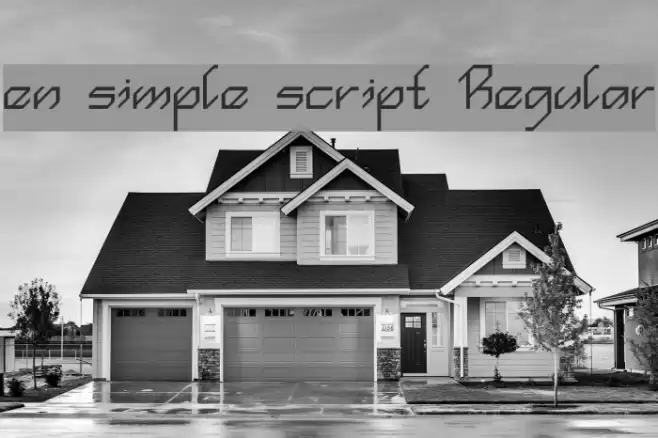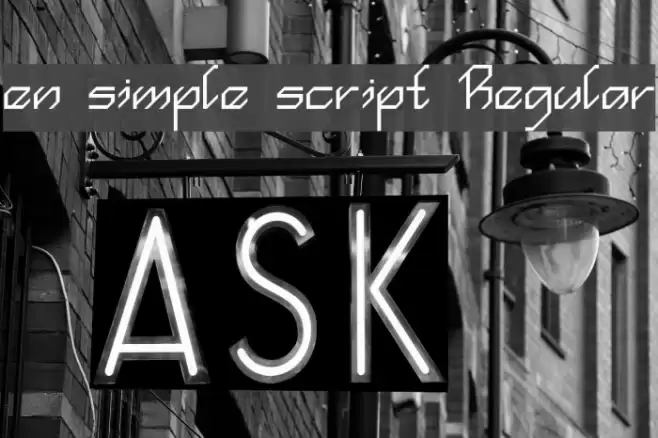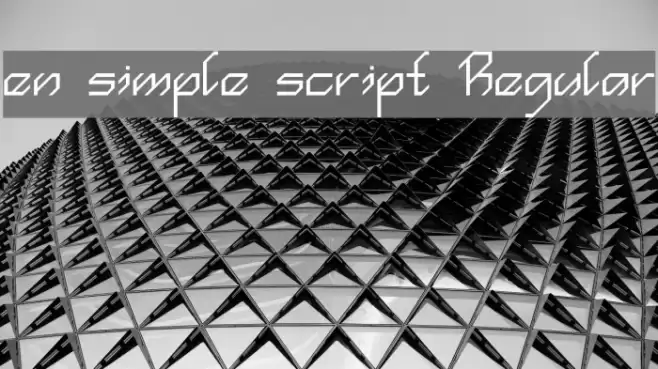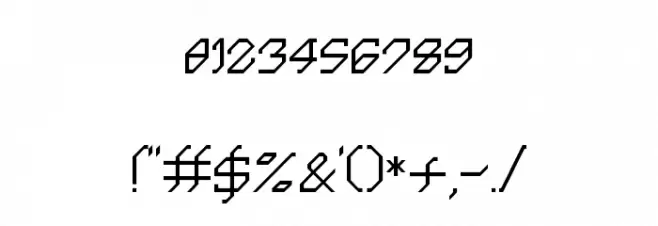
en simple script Regular Font
en simple script Regular Description
This font features a unique and modern script style with a geometric touch. The characters are connected with angular lines, giving it a structured yet fluid appearance. The uppercase letters are bold and prominent, while the lowercase letters maintain a consistent flow, enhancing readability. The numerals and special characters follow the same angular design, ensuring uniformity across all elements. This font's distinct style makes it suitable for creative and artistic projects, where a modern and edgy look is desired.
A modern script font with angular, geometric lines and a structured flow from Uncategorized fonts.
- Proposed Projects: Ideal for branding, logos, posters, and creative design projects that require a modern and distinctive look.
- Use Case: Logos, Posters, Creative Design